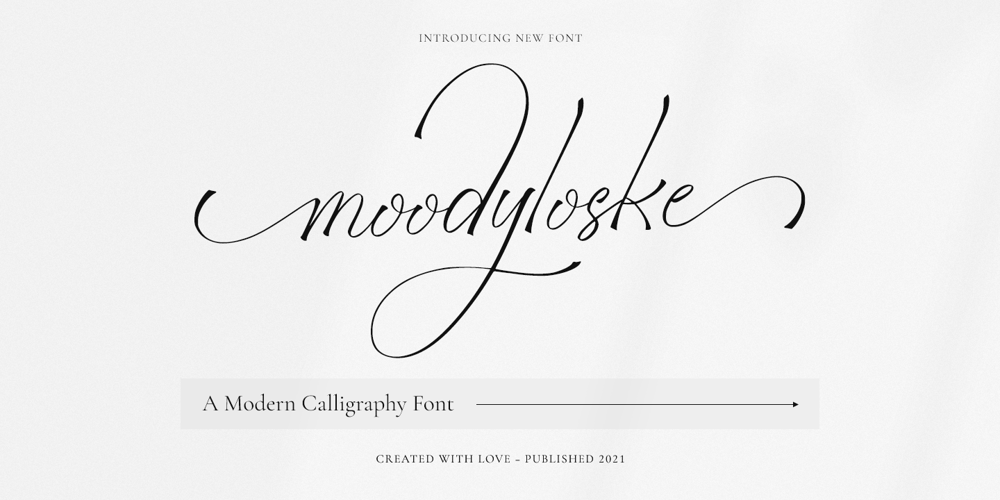
Moodyloske Font Family was designed by Novia Himatunnisa and published by Nissa Nana. Moodyloske contains 1 styles and family package options. Moodyloske is a distinct graceful script font. Fall for its ravishing style and use it to create gorgeous designs. This font is PUA encoded which means you can access all glyphs and swashes with ease!